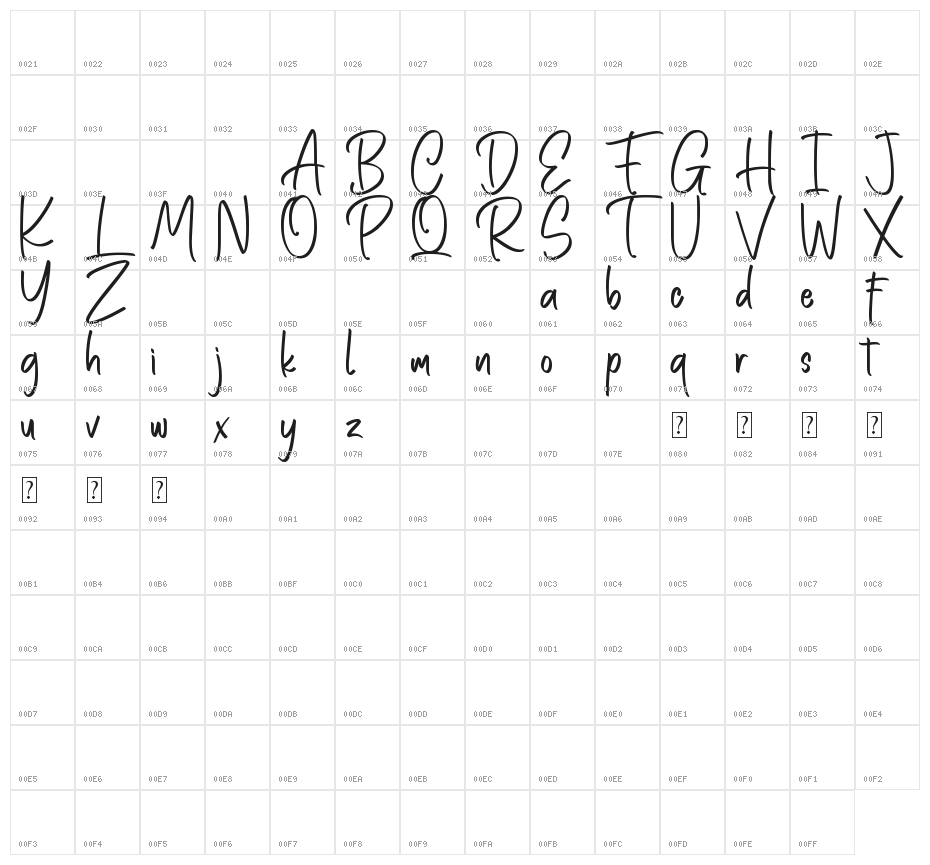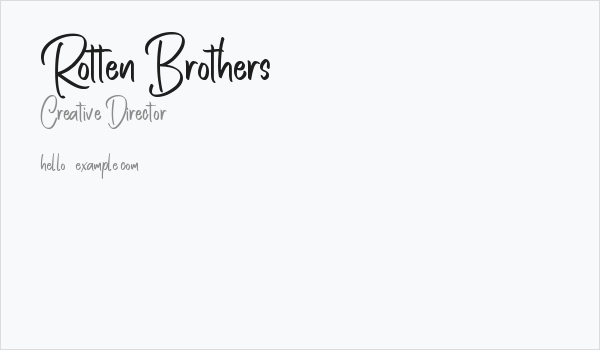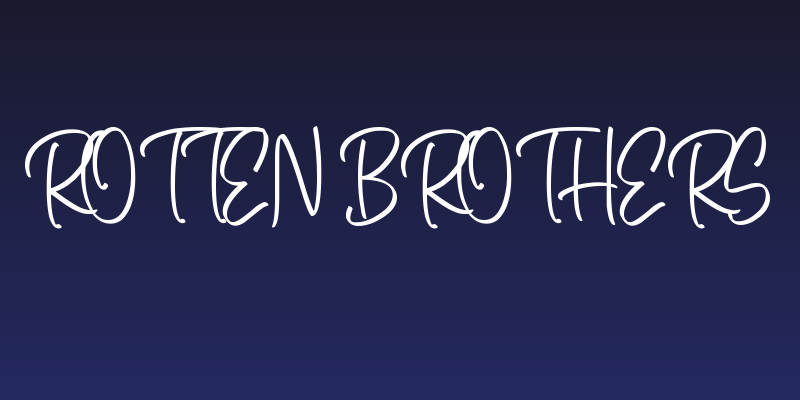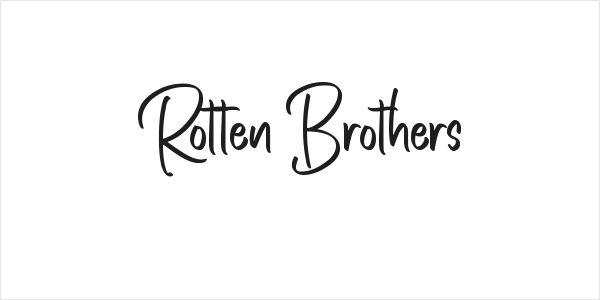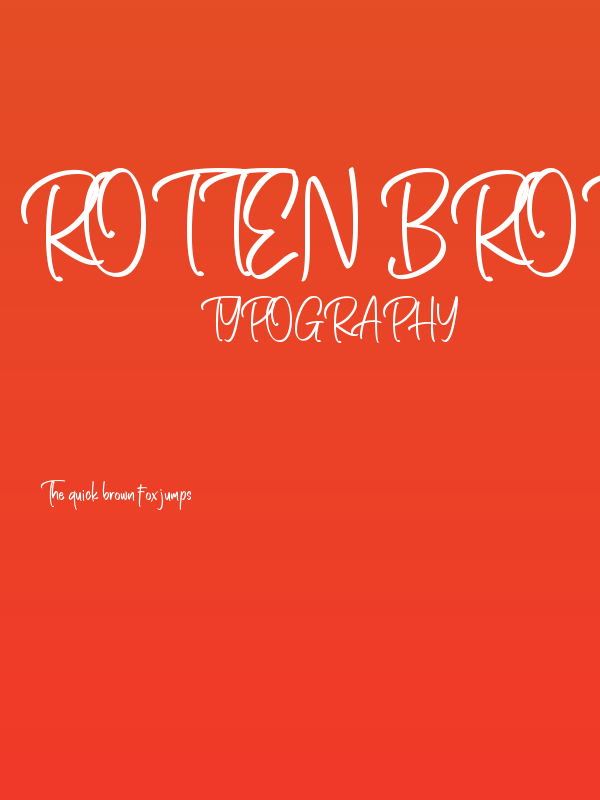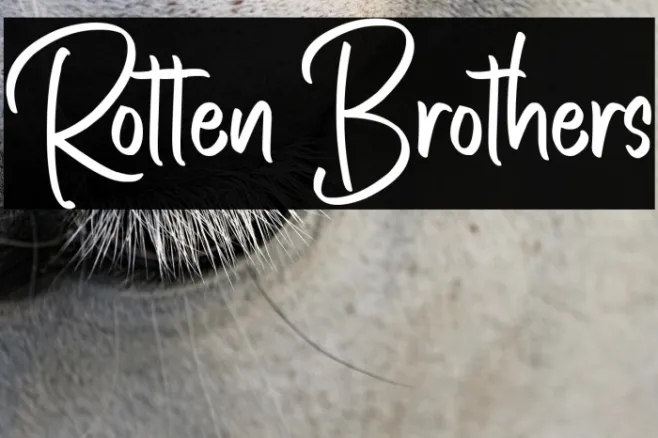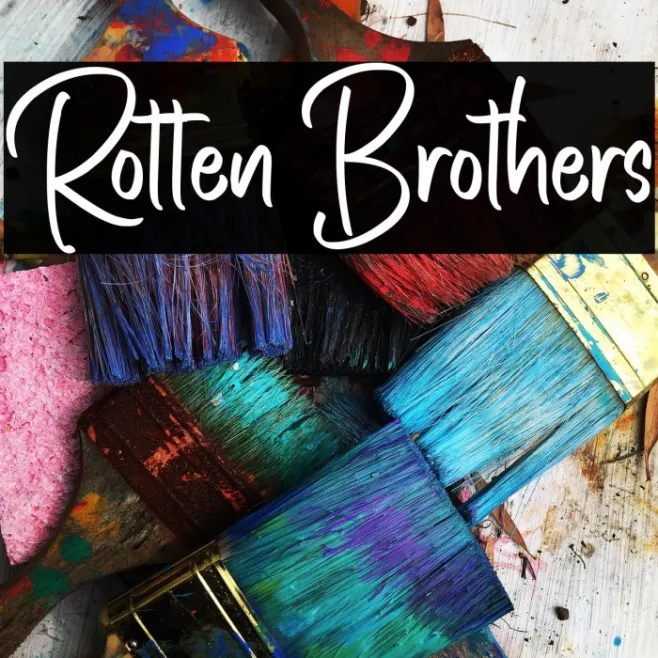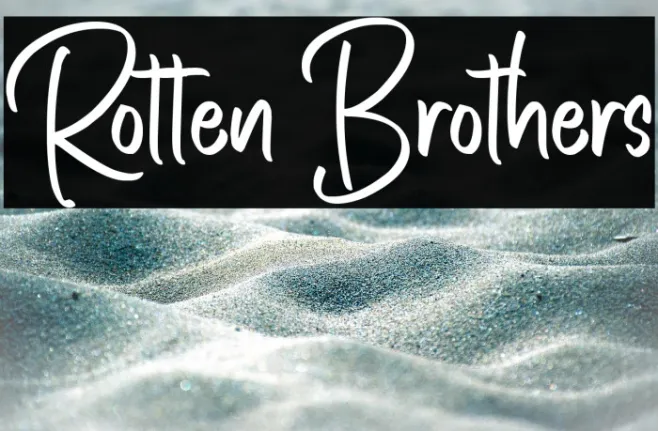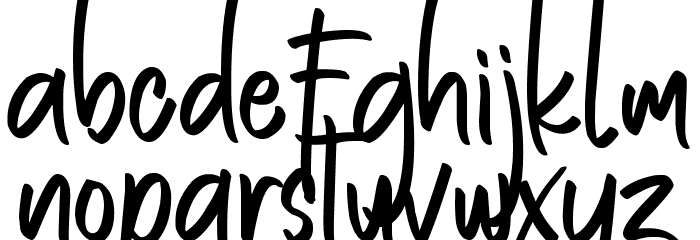
Rotten Brothers Font
Rotten Brothers Description
This font features a playful and energetic handwritten style, characterized by its dynamic and fluid letterforms. The uppercase letters are tall and slender, with a slight slant that adds a sense of movement. In contrast, the lowercase letters are bold and rounded, providing a strong visual impact. The combination of thin and thick strokes creates a lively rhythm, making it ideal for projects that require a personal and informal touch. The font's unique style is further enhanced by its irregular baseline, giving it an authentic handwritten feel.
| Proposed Projects | Ideal for greeting cards, posters, social media graphics, and branding projects that require a personal touch. |